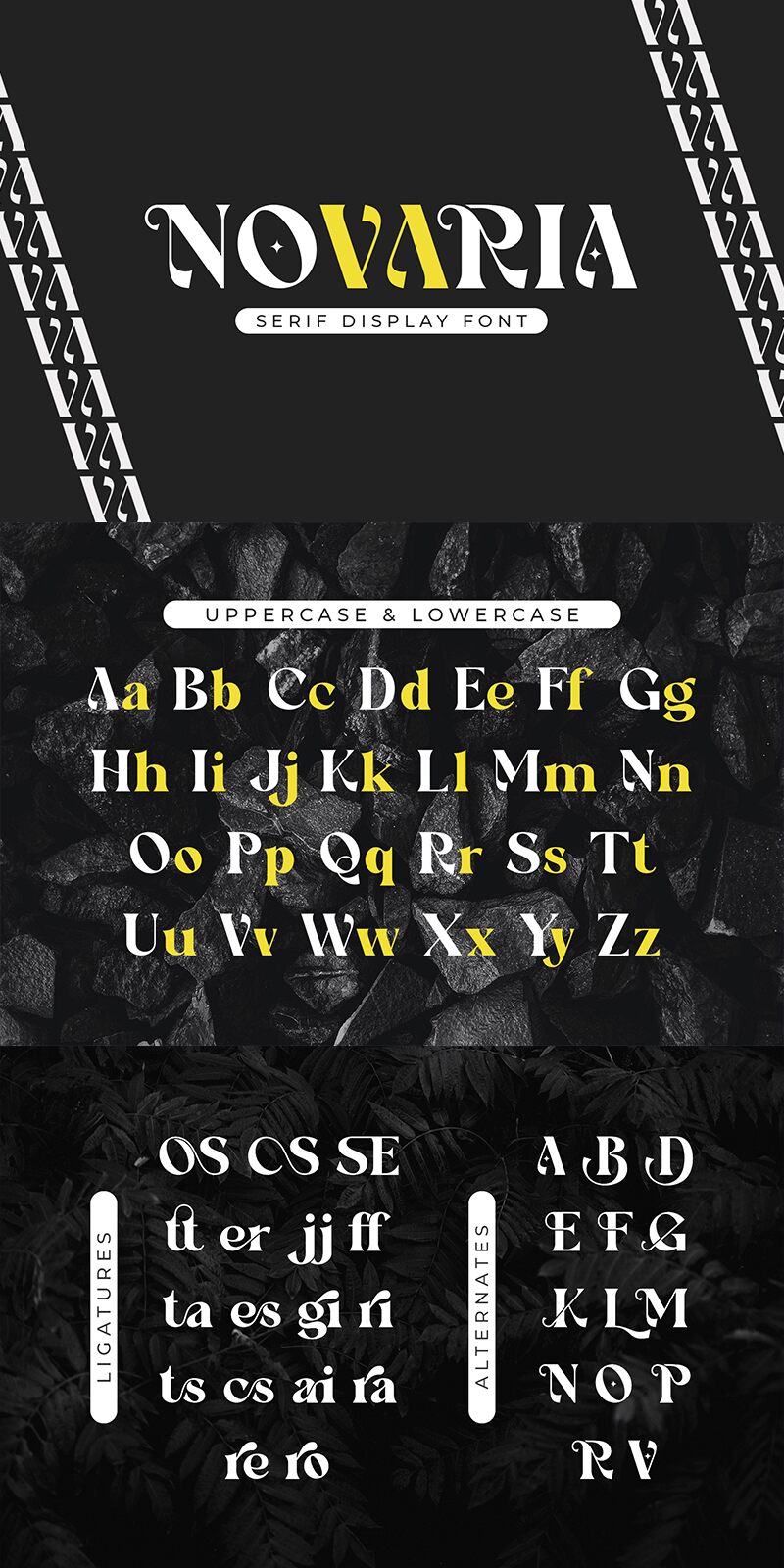
Novaria
Novaria font is a bold display font by Ahmad Riqi created in a vintage retro style. It has an elegant and sophisticated structure that captivates viewers without overpowering the design it’s used in. Dramatic and romantic, it is your perfect choice if you have any kind of modern designs that would benefit from a refined classic touch.